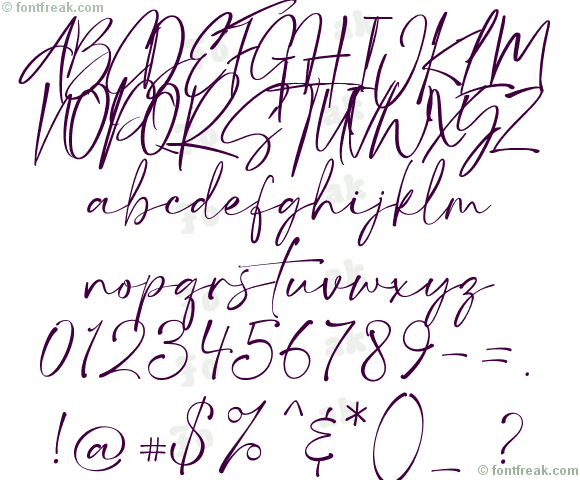
HeyLovely2nd-Regular
About HeyLovely2nd-Regular
Introducing the HeyLovely2nd-Regular font by 50Fox Studio, a captivating handwritten typeface that brings a warm, personal touch to your design projects. This font falls within the script category, characterized by its fluid, flowing lines that mimic natural handwriting. With a medium stroke weight and a balanced contrast, HeyLovely2nd-Regular exudes both elegance and approachability, making it a versatile choice for various applications.
The visual characteristics of this font are particularly striking. The smooth curves and subtle flourishes add a decorative flair, while the well-considered spacing ensures readability without sacrificing style. The graceful ascenders and descenders contribute to a lively appearance, perfect for projects that require a hint of sophistication and charm.
HeyLovely2nd-Regular is ideal for a range of use cases. It shines in wedding invitations, where its romantic style can set the perfect tone for a special day. Additionally, it works beautifully on greeting cards, providing a personal touch for heartfelt messages. Restaurant menus can also benefit from this font, lending an artistic flair that enhances the dining experience. Small business owners can utilize HeyLovely2nd-Regular for branding materials, promotional flyers, or social media graphics, ensuring their message stands out while maintaining a friendly vibe.
In conclusion, HeyLovely2nd-Regular distinguishes itself not only through its beautiful design but also through its adaptability across various formats. This font is a perfect blend of charm and functionality, making it a must-have for anyone looking to elevate their creative projects.